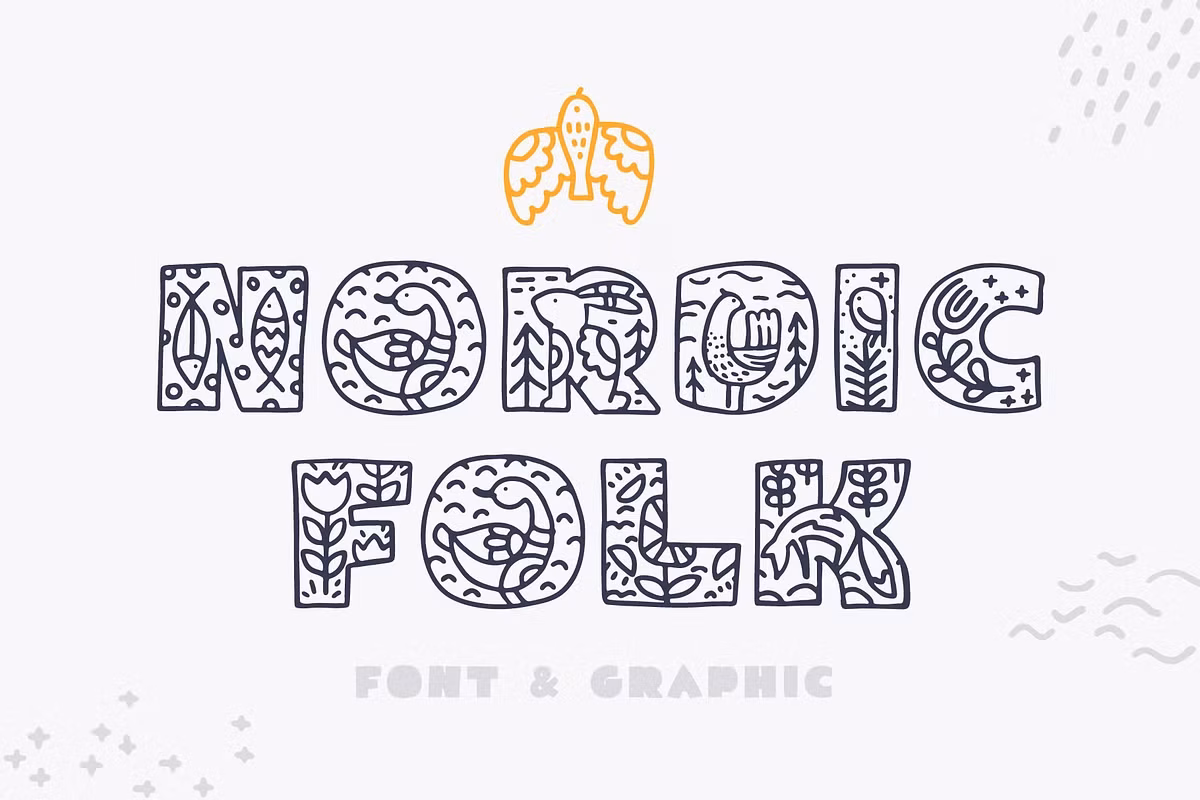
NordicFolk Fonts & Graphic Set Free Download is a stunning collection of rustic fonts and graphics inspired by Nordic culture, perfect for any design that requires a bold and earthy aesthetic. With its hand-crafted lettering and intricate graphic elements, this set is ideal for branding, packaging, greeting cards, logos, and posters that need a touch of nature and tradition.
The NordicFolk set features multiple fonts and decorative graphics that bring warmth and authenticity to your typography. Whether you're working on a Scandinavian-inspired logo, outdoor event materials, or rustic invitations, this set provides versatile and stylish tools to elevate your designs.